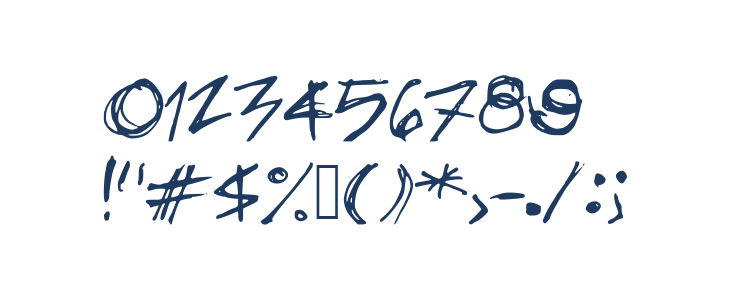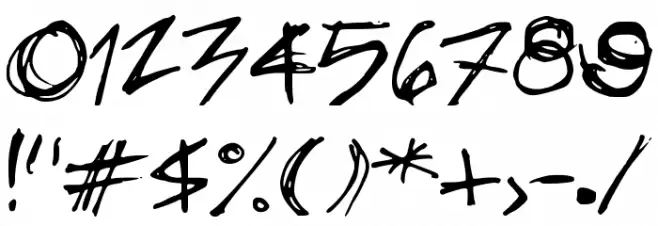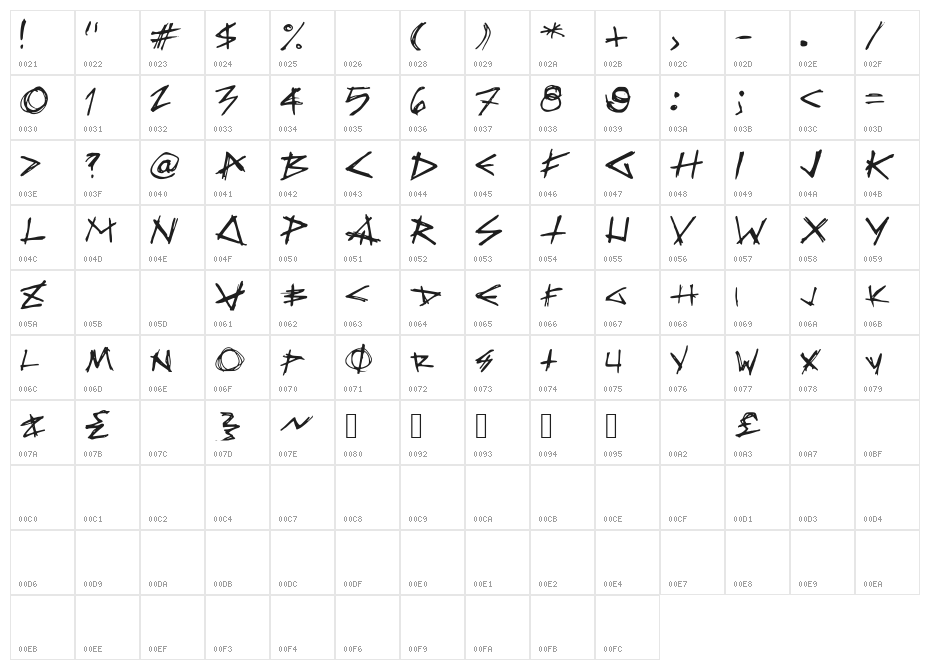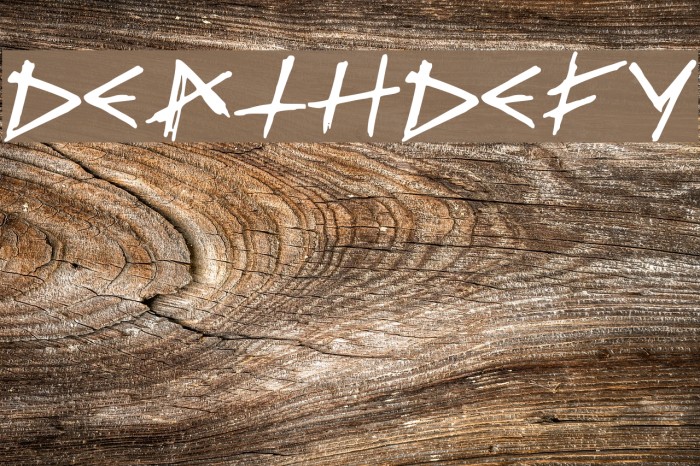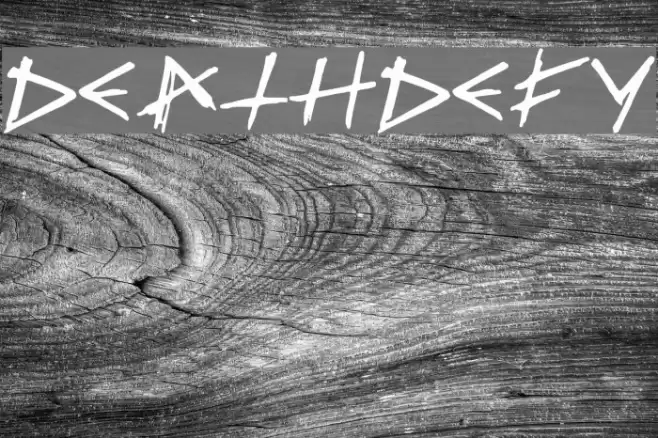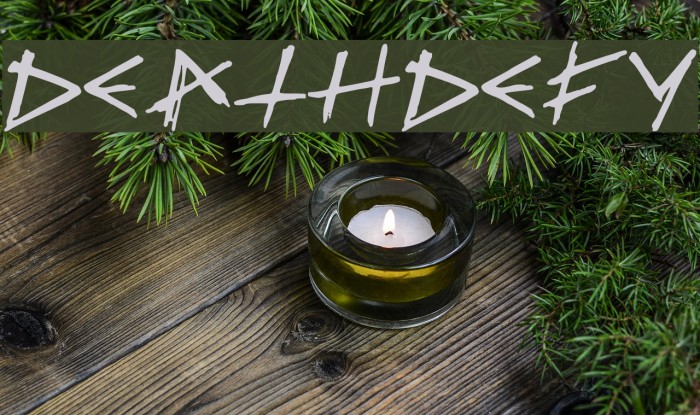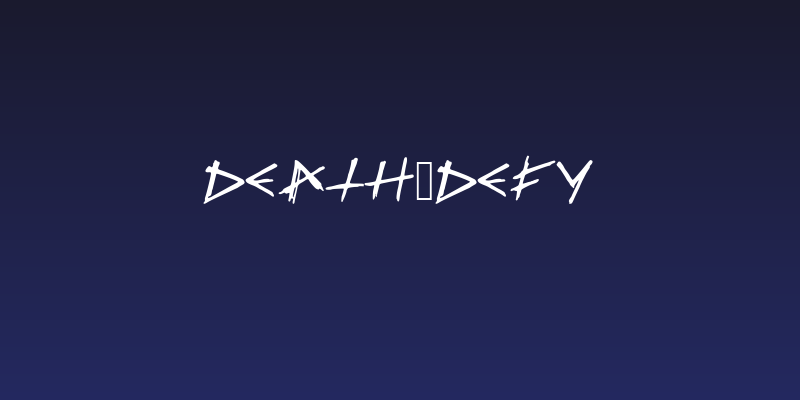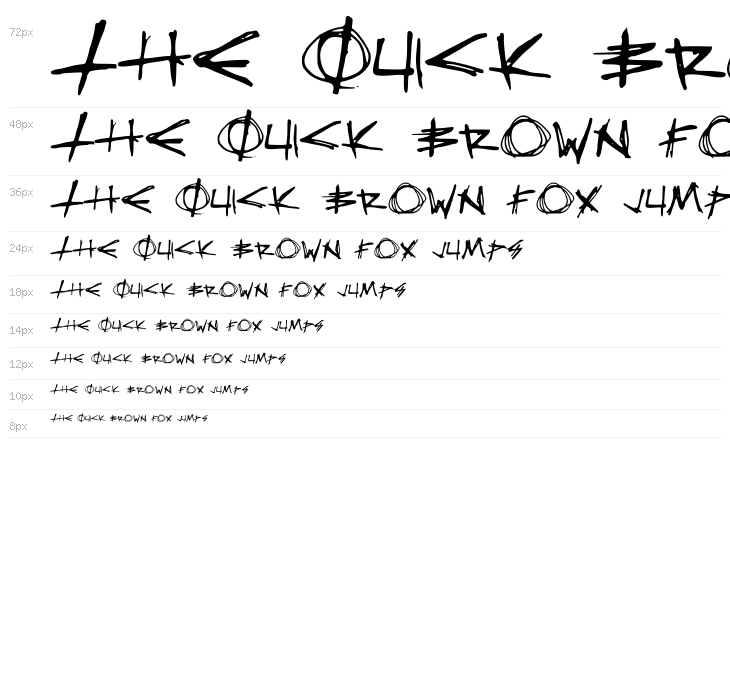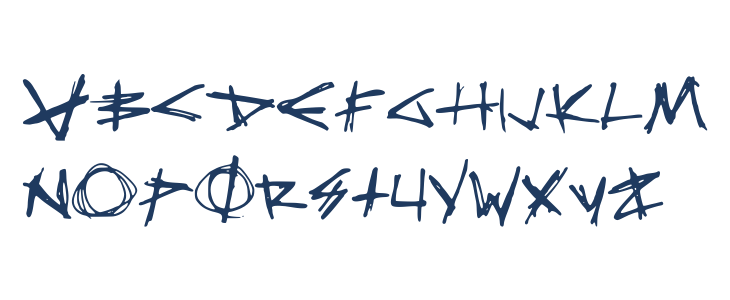
DEATH_DEFY Font
DEATH_DEFY Description
This font features a bold, edgy design with sharp, angular strokes and a hand-drawn appearance. The characters are irregular and dynamic, giving a sense of movement and energy. The uppercase and lowercase letters maintain a consistent style, with exaggerated lines and a rough texture that adds to the font's rebellious and unconventional look. The numbers and special characters follow the same aesthetic, making the font suitable for projects that require a dramatic and impactful visual presence.
| Proposed Projects | Ideal for music album covers, horror movie posters, graffiti art, and edgy branding materials. |